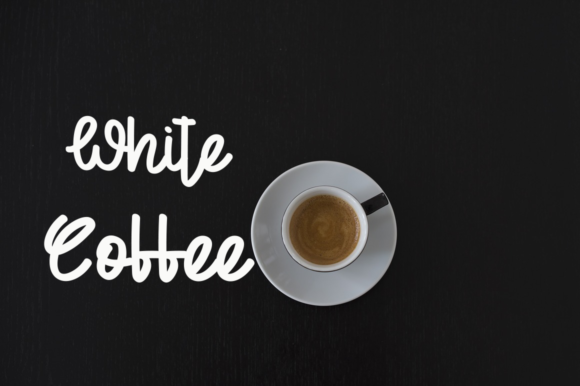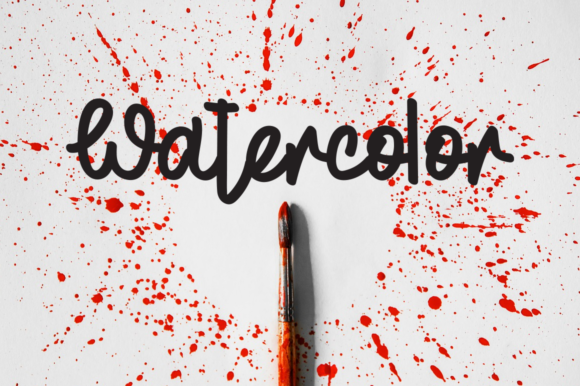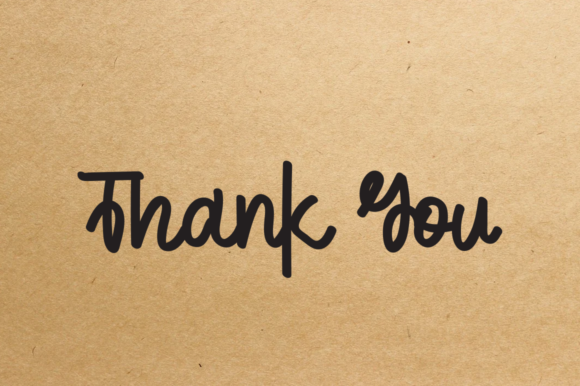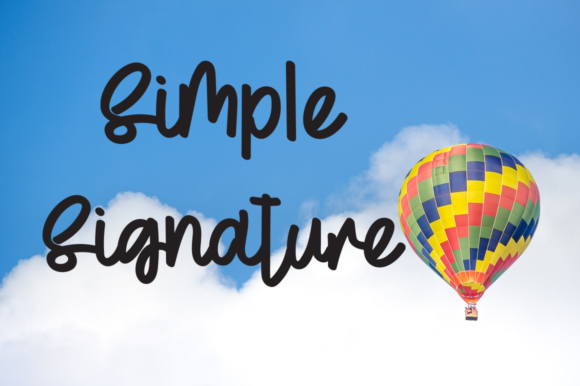
About Simple Summer Font
Simple Summer is a fun and playful handwritten font that adds a touch of joy and creativity to your designs. With its casual style and unique charm, this font is perfect for various applications, including greeting cards, stationery, logos, and more.
The fun nature of Simple Summer font makes it versatile and engaging. Its handwritten appearance and relaxed letterforms contribute to a visually pleasing aesthetic that feels light-hearted and cheerful. Whether you’re creating personalized greeting cards, designing unique stationery, or crafting a playful logo, Simple Summer font enhances the overall visual appeal with its fun and lively demeanor.
Using Simple Summer font allows you to infuse your designs with a sense of playfulness and creativity. Its casual and relaxed style adds an organic and personal touch, making your designs feel approachable and relatable. This font brings a sense of joy and spontaneity, making your compositions visually appealing and enjoyable for your audience.
The simplicity of Simple Summer font ensures that your message remains clear and concise. Its legible letterforms make it suitable for both headline and body text, allowing you to create cohesive and well-balanced designs.
Incorporating Simple Summer font into your design projects empowers you to create fun and captivating visuals. Its playful and casual handwritten font adds a touch of joy and enhances the overall impact of your designs.
In summary, Simple Summer is a fun handwritten font that adds a touch of joy and creativity to your designs. Its casual style creates a light-hearted and engaging aesthetic. Embrace the playfulness of Simple Summer font and let it enhance your greeting cards, stationery, logos, and more, making them visually appealing and full of personality.